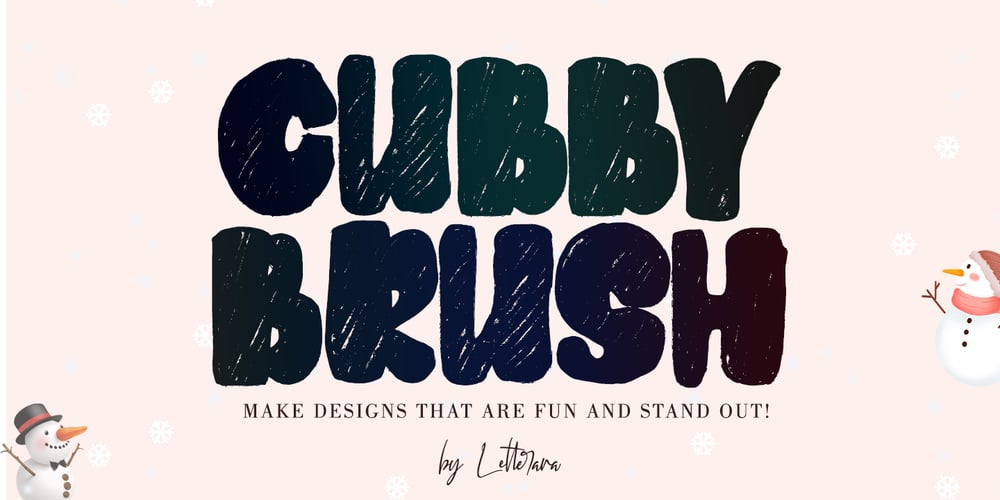
Cubby Brush Font Family was designed by Thomas Aradea and published by Letterara. Cubby Brush contains 1 styles and family package options. Cubby brush Font is a brush font with a natural flow to help you make designs that are fun and stand out. Features: – Uppercase – Numerals – Punctuations (OpenType Standard) – Accents (Multilingual characters) – Works on PC & Mac – Simple installations – Accessible in the Adobe Illustrator, Adobe Photoshop, Adobe InDesign, even works on Microsoft Word. don’t wait anymore, put it in your shopping basket ๐ and follow me, because there will be many promos!